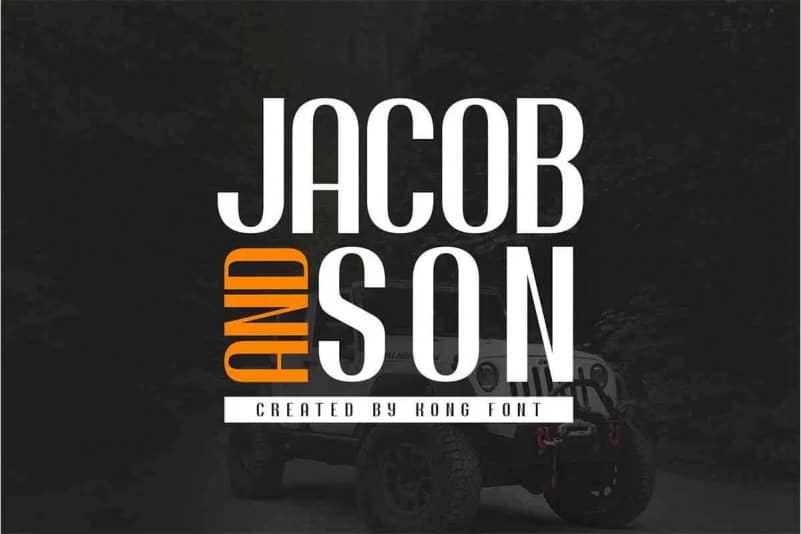
Jacob And Son Sans Serif Font
Jacob And Son Font is a powerful sans-serif typeface family made to be a perfect choice for titles and headlines but it’s versatile enough to be a good fit for a multitude of projects.
It works very well for posters and other prints as well as for logos or other graphics that require strong and impact typography. This font is free for PERSONAL USE.